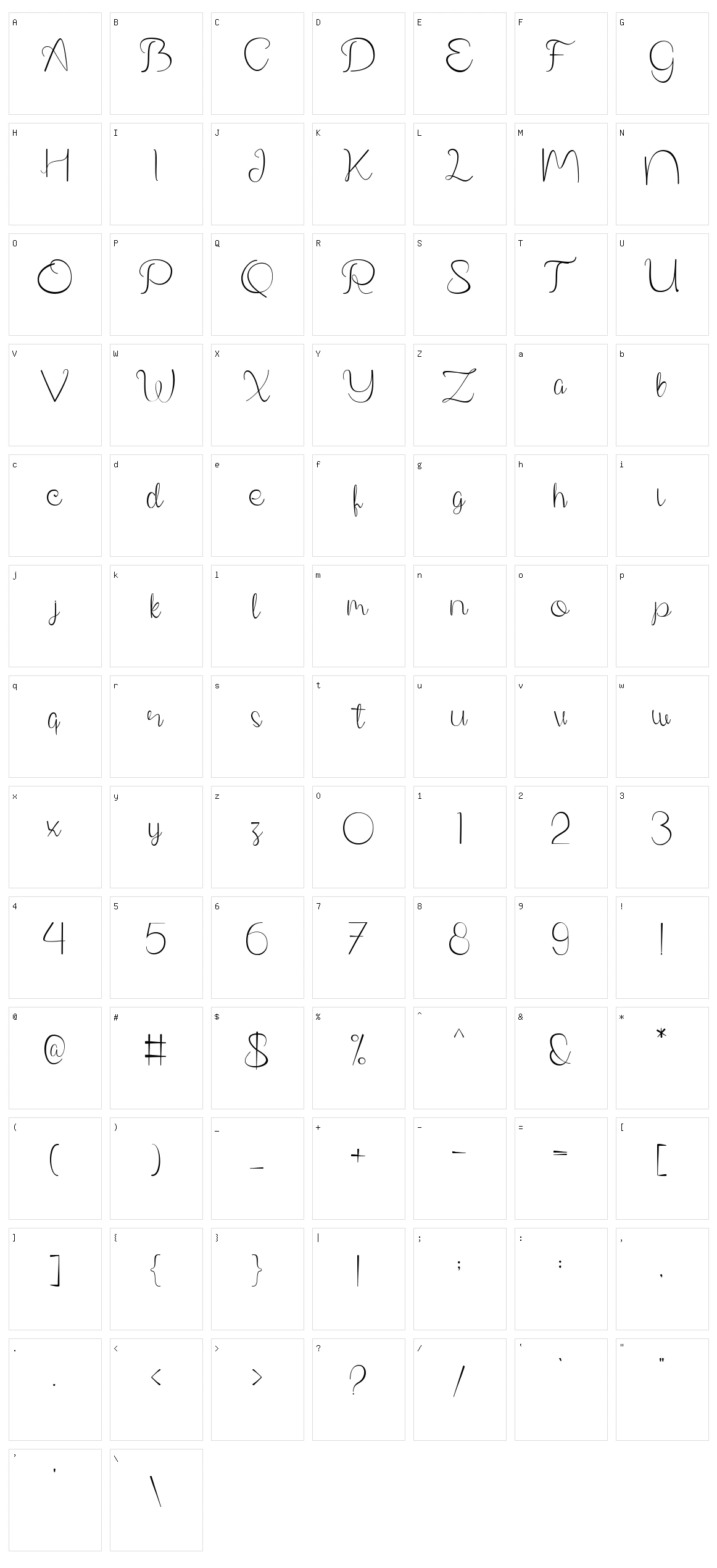
The free font Phanthomim is carefully designed by TSA Creative, showcasing a thoughtful balance of creativity and usability and falls under the Script font style. When you download the ZIP file, it contains only 41.72 KB of font files, making it lightweight and quick to download. Please review the license details below to understand permitted usage and distribution rights. If license information is not available, we recommend using this font for personal projects only or contacting the author directly for commercial usage permissions.